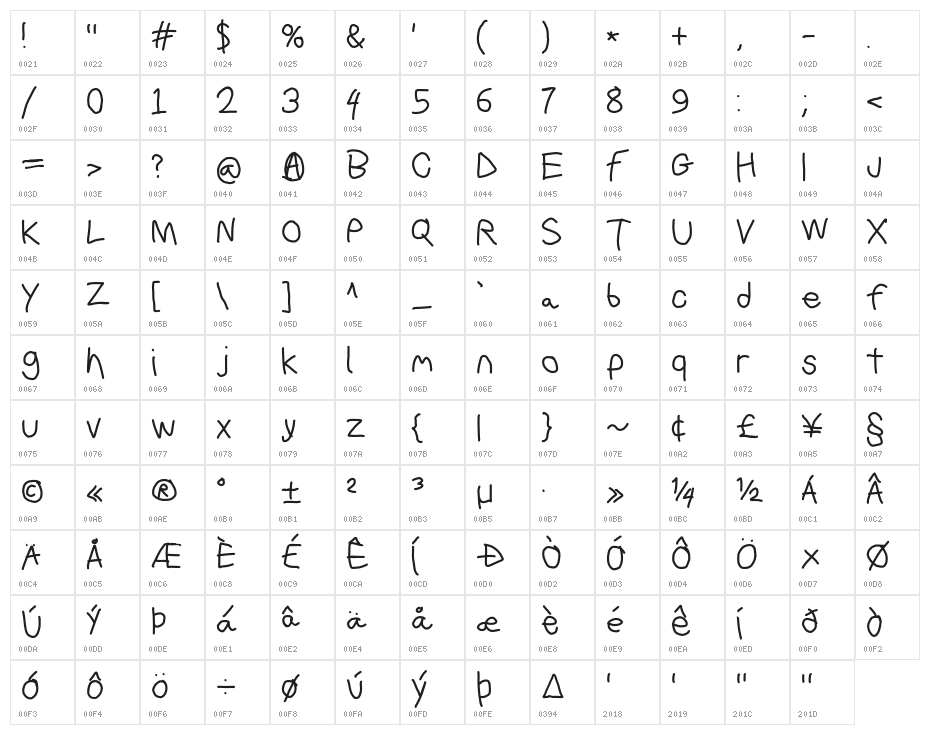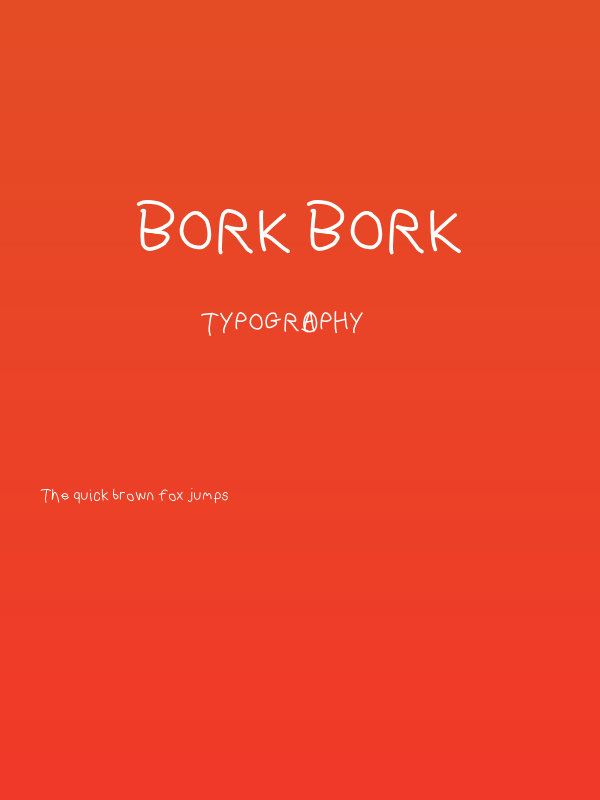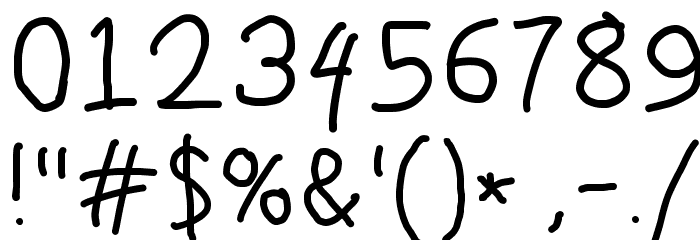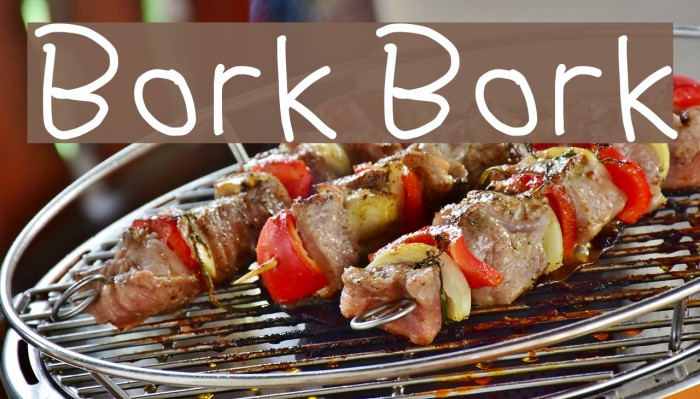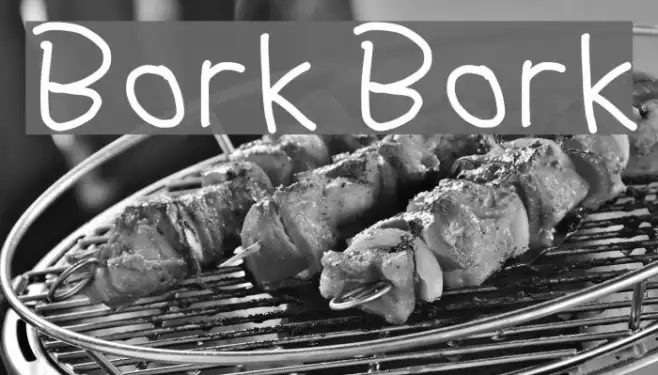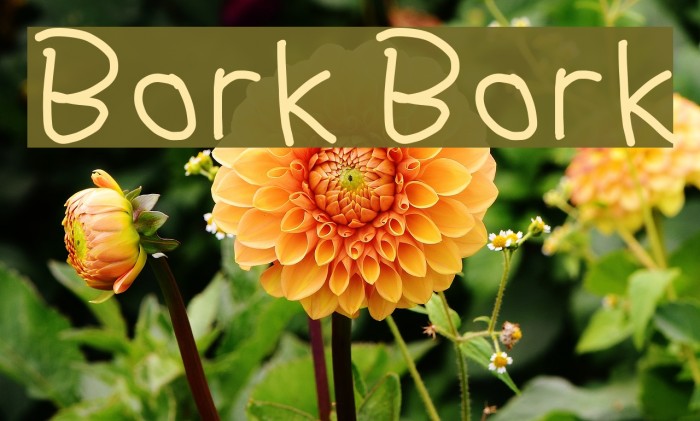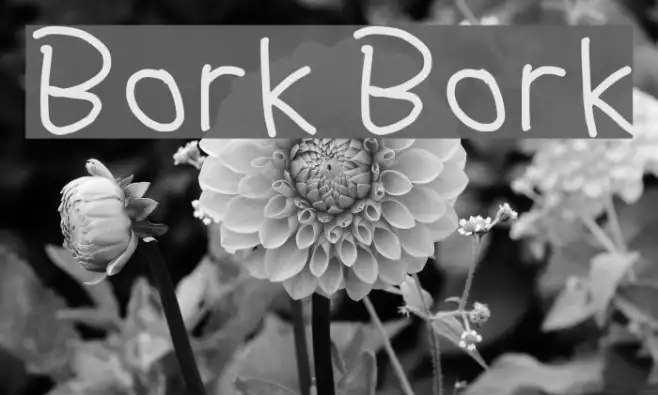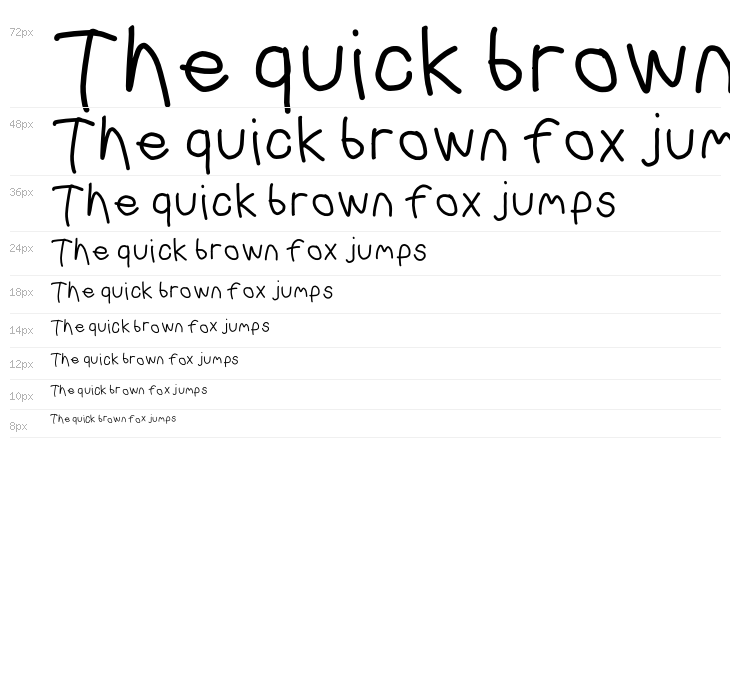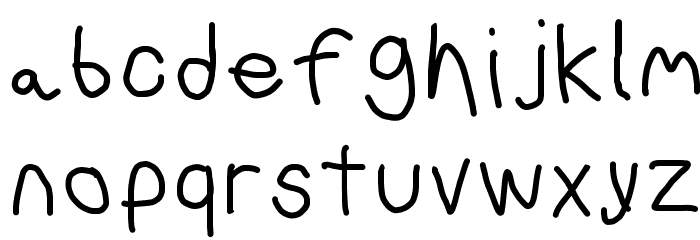
Bork Bork Font
Bork Bork Description
This playful and casual handwritten font exudes a sense of whimsy and informality. The characters are unevenly weighted, giving them a natural, hand-drawn appearance. The strokes are smooth and slightly rounded, contributing to a friendly and approachable feel. Each letter maintains a consistent baseline, yet the varying heights and widths add a dynamic quality. The numerals and special characters follow the same style, ensuring a cohesive look across all text. This font is perfect for projects that require a personal touch, such as greeting cards, children's books, or informal invitations.
| Use Case | Headlines, Informal text, Personal projects |
| Proposed Projects | Ideal for greeting cards, children's books, informal invitations, and personal projects. |